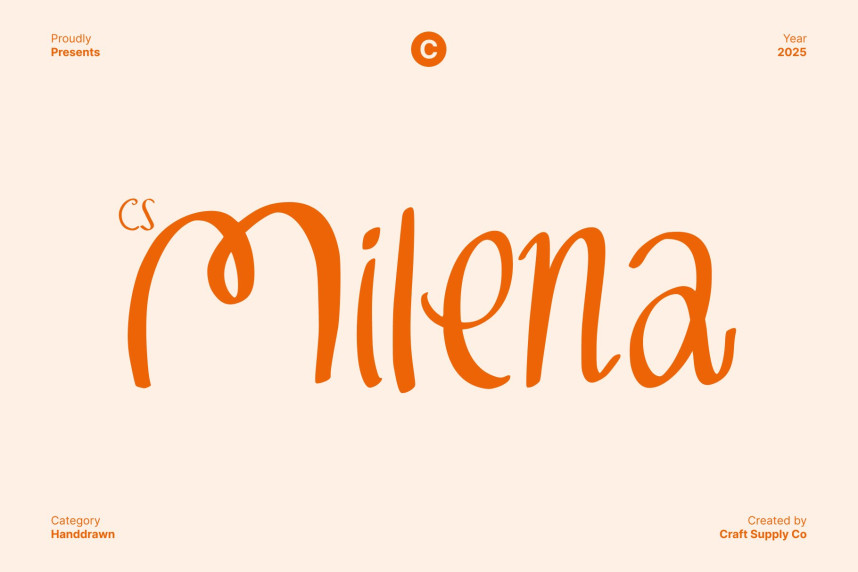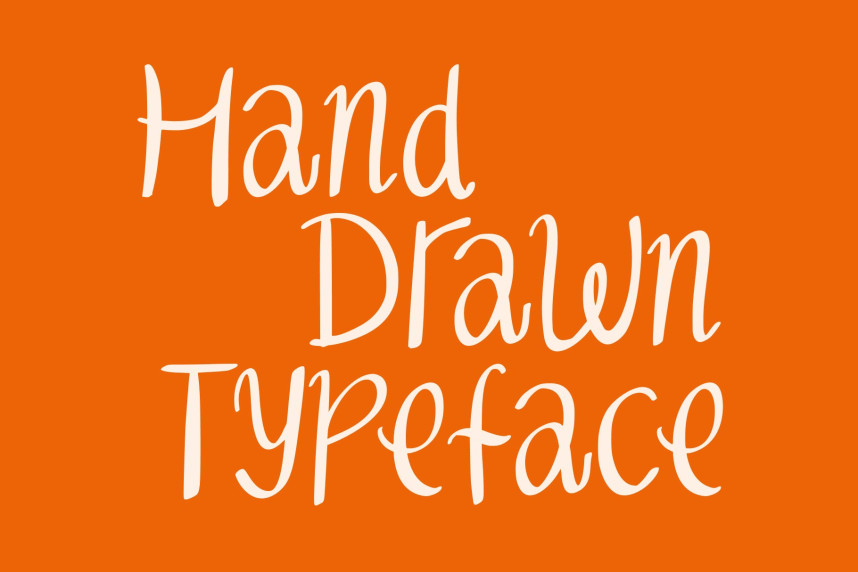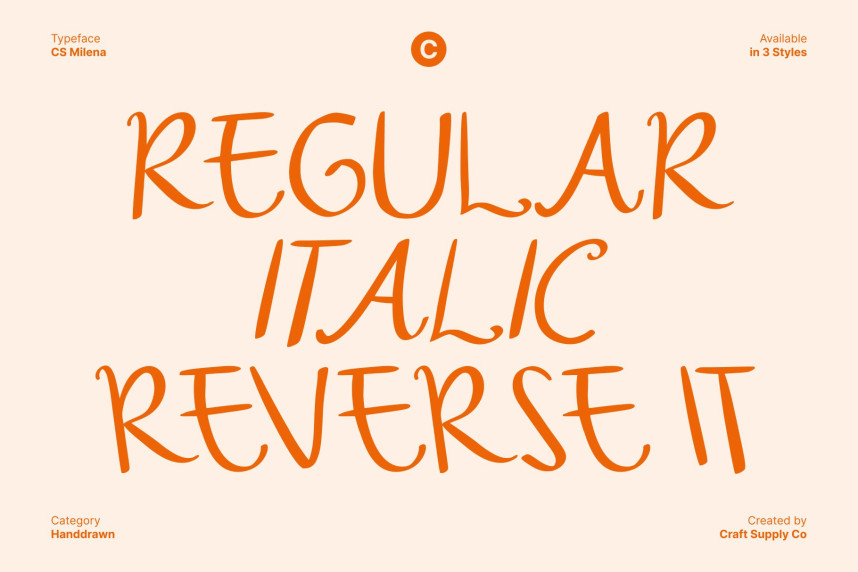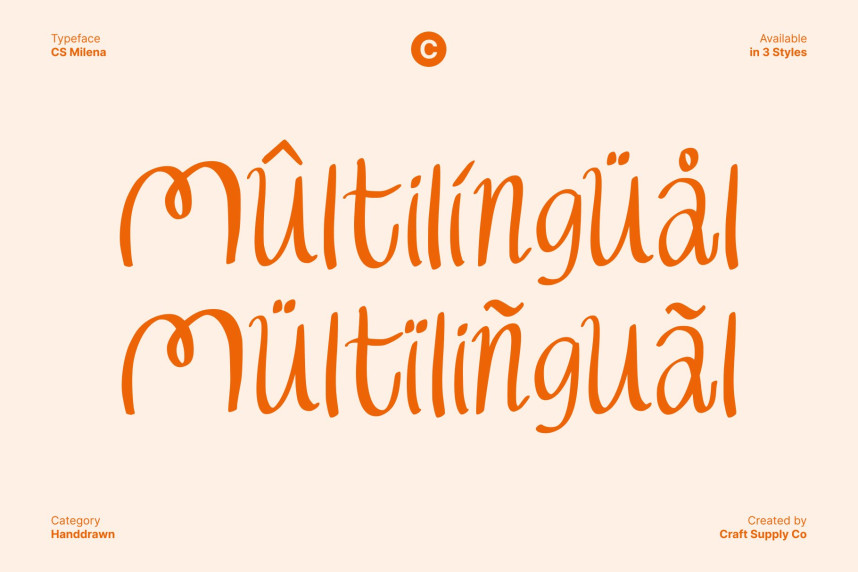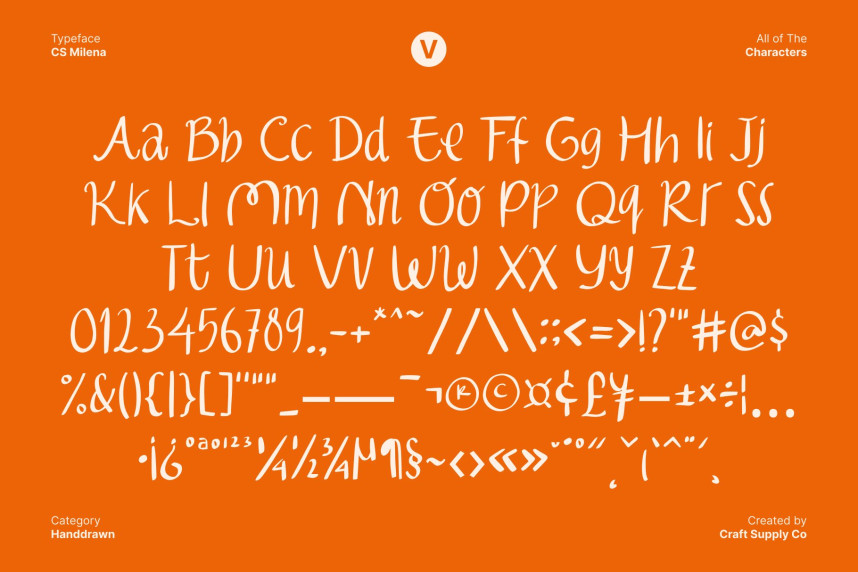
CS Milena Font
CS Milena Font – Handwritten Font with Beauty and Whimsy A Charming Blend of Sans Serif and Script Styles. This is a beautifully crafted handwritten font that merges the clarity of sans serif letterforms with the expressive flow of script handwriting. This unique combination creates a versatile and stylish typeface that feels personal, warm, and effortlessly elegant.